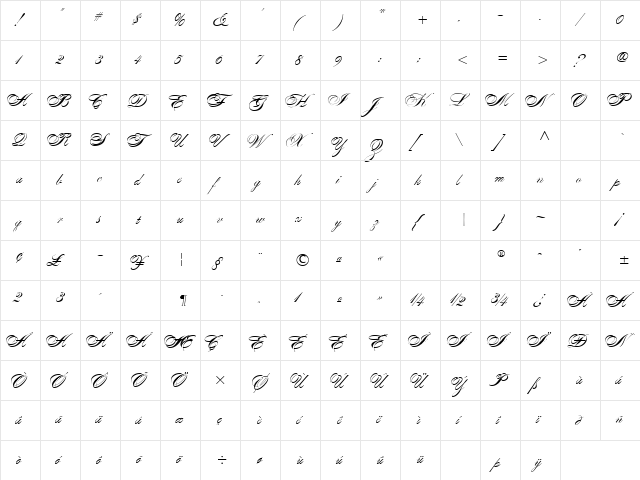
Alexandra Script Regular
| Foundry | Gophmann A.L |
| Designer | Gophmann A.L |
Design Context for Alexandra Script Typeface
Alexandra Script brings a calligraphic fluidity to the page — its connecting strokes and expressive curves give it an unmistakably human quality.
Font Pairing: Combine Alexandra Script with a simple geometric sans for maximum contrast — the tension between flowing curves and clean structure is a classic typographic pairing.
Pro Tip: Pair Alexandra Script with a clean sans-serif for supporting text. The contrast between fluid script and geometric structure creates an elegant typographic hierarchy.